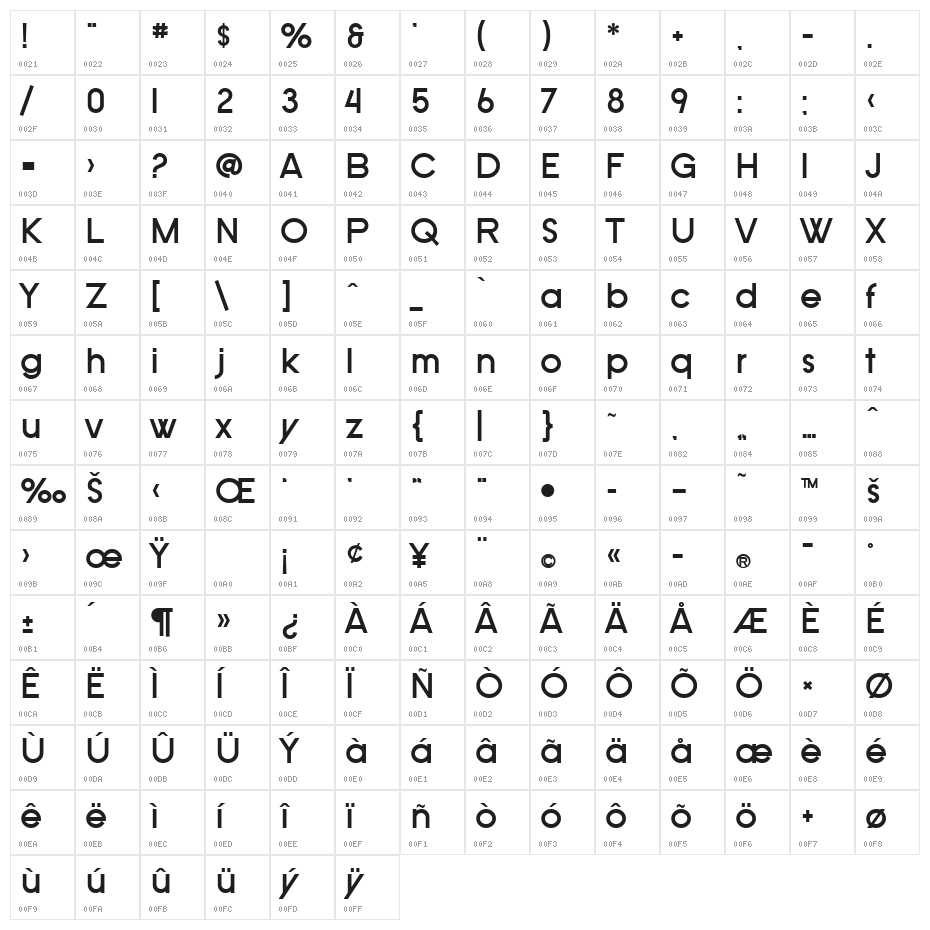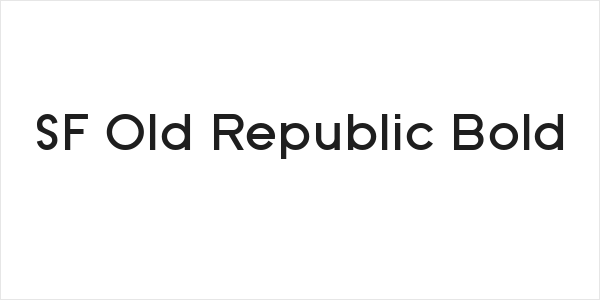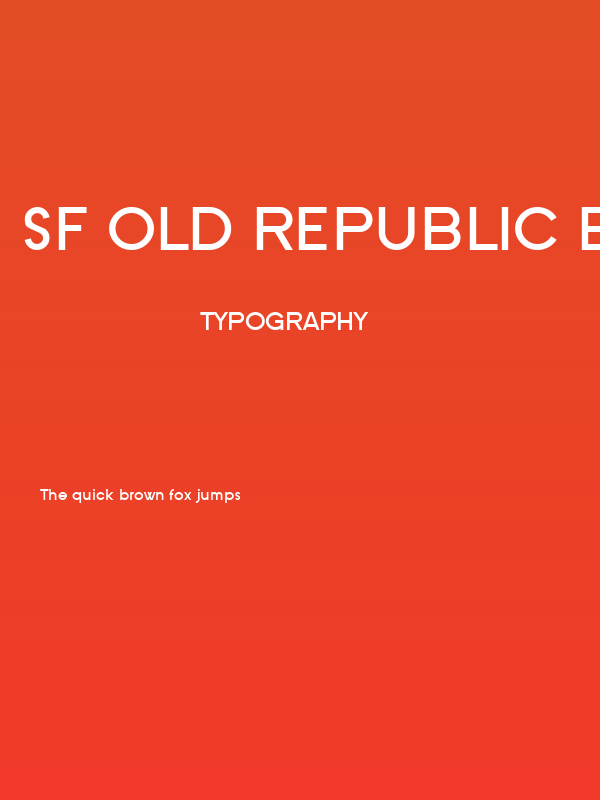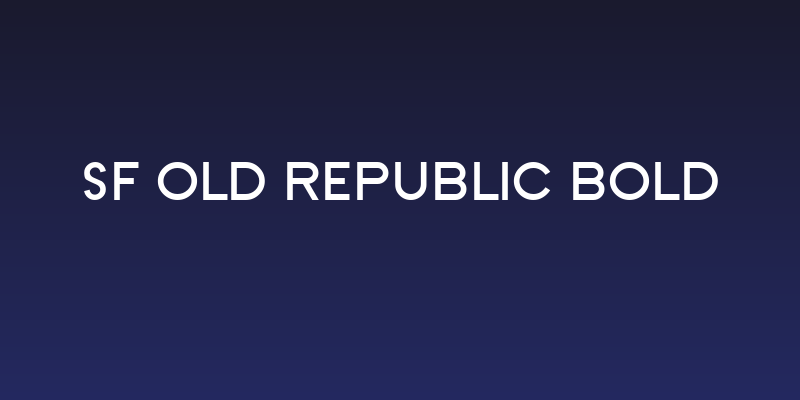
SF Old Republic Bold Font
SF Old Republic Bold Description
This font features a bold and modern sans-serif design with clean, geometric lines and a strong presence. The uppercase and lowercase letters are well-balanced, offering a uniform appearance that enhances readability. The numerals are distinct and clear, making them suitable for various applications. Special characters are included, maintaining the font's cohesive style. The overall design is sleek and contemporary, making it versatile for both digital and print media.
| Proposed Projects | Ideal for branding, advertising, headlines, and digital media projects. |